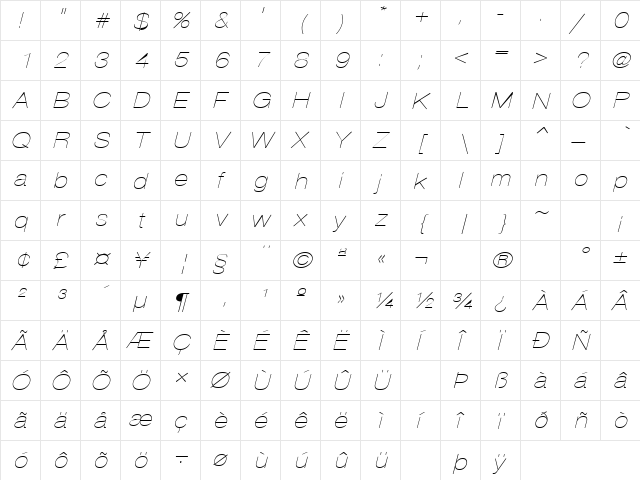
Communication 12 Regular
Design Context for Communication 12 Typeface
Communication 12 takes a measured approach to typography — its balanced proportions and neutral character make it a reliable workhorse for both digital and print work.
Pro Tip: Use Communication 12 in both headline and body roles to test its range before committing to a single application.